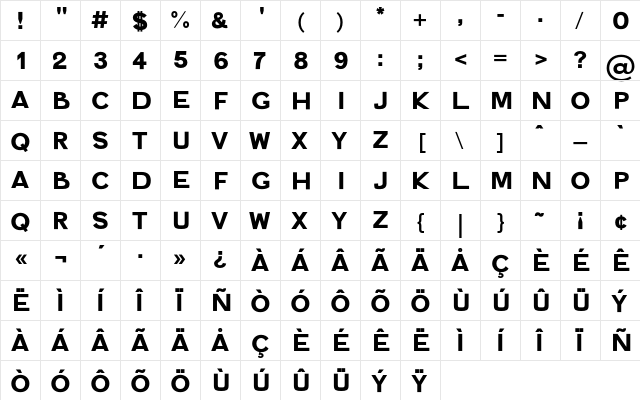
Vidi Bold
Design Context for Vidi Typeface
Vidi is a composed and adaptable typeface that performs quietly and consistently across a wide range of design contexts. The heavy weight commands attention and anchors typographic hierarchies.